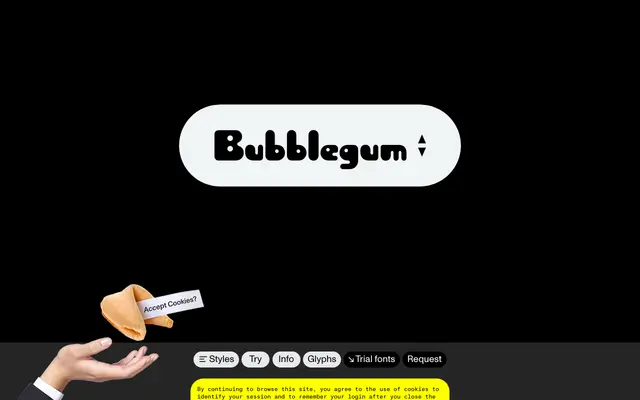
ABC Bubblegum
Dinamo Typefaces · Dinamo (Fabian Harb, Michelangelo Nigra, Marc Rouault) · 2024
A geometric, modular bubble display by Fabian Harb with built-in small caps and a monospaced companion.
A bubble display by Fabian Harb with Michelangelo Nigra and Marc Rouault that fuses soft, rounded shapes with strict modular geometry. Small caps are baked into the same font, and a monospaced companion is included for tabular work. A counterpoint to the looser bubble fonts found on the free-font fringes.
Dinamo describes Bubblegum as soft and silly but also geometric and highly modular, with built-in small caps and a monospaced companion, distinguishing it from typical 'bubbly' free fonts.